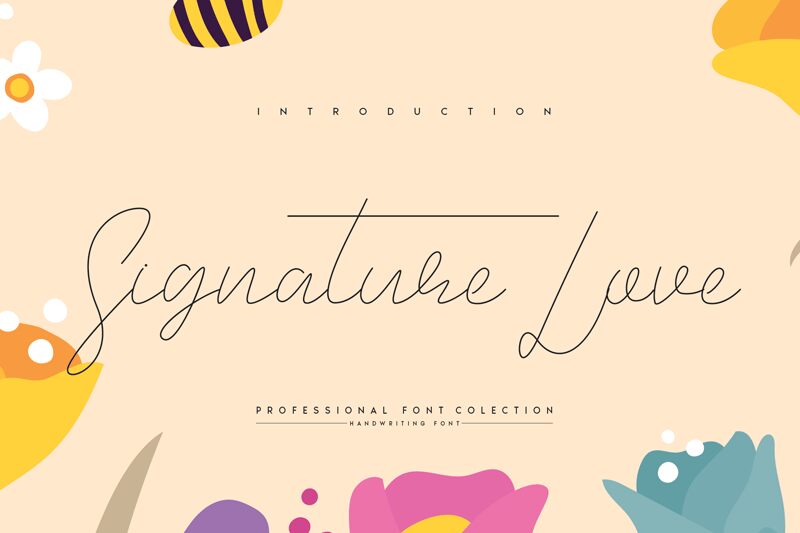
Signature Love
Signature Love, designed by Belina Studio, exudes elegance and sophistication with its ultra-light weight and signature style. This enchanting font is perfect for wedding invitations, love letters, and romantic branding projects. Its delicate curves and flowing strokes lend a touch of grace to any design, making it ideal for creating memorable logos, feminine blog headers, or exquisite product packaging. With Signature Love as your artistic companion, every project will radiate an air of timeless beauty and heartfelt emotion. Let this enchanting font weave its magic into your next creative endeavor.